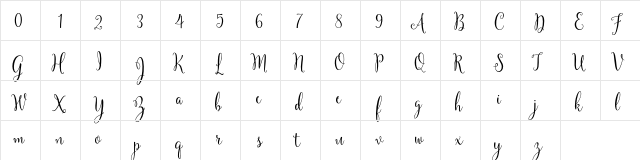
Yulinda Script Demo Regular
| Foundry | Barmawy Muchtar |
| Designer | Barmawy Muchtar |
Design Context for Yulinda Script Demo Typeface
Yulinda Script Demo brings a calligraphic fluidity to the page — its connecting strokes and expressive curves give it an unmistakably human quality.
Font Pairing: Combine Yulinda Script Demo with a simple geometric sans for maximum contrast — the tension between flowing curves and clean structure is a classic typographic pairing.
Pro Tip: Pair Yulinda Script Demo with a clean sans-serif for supporting text. The contrast between fluid script and geometric structure creates an elegant typographic hierarchy.